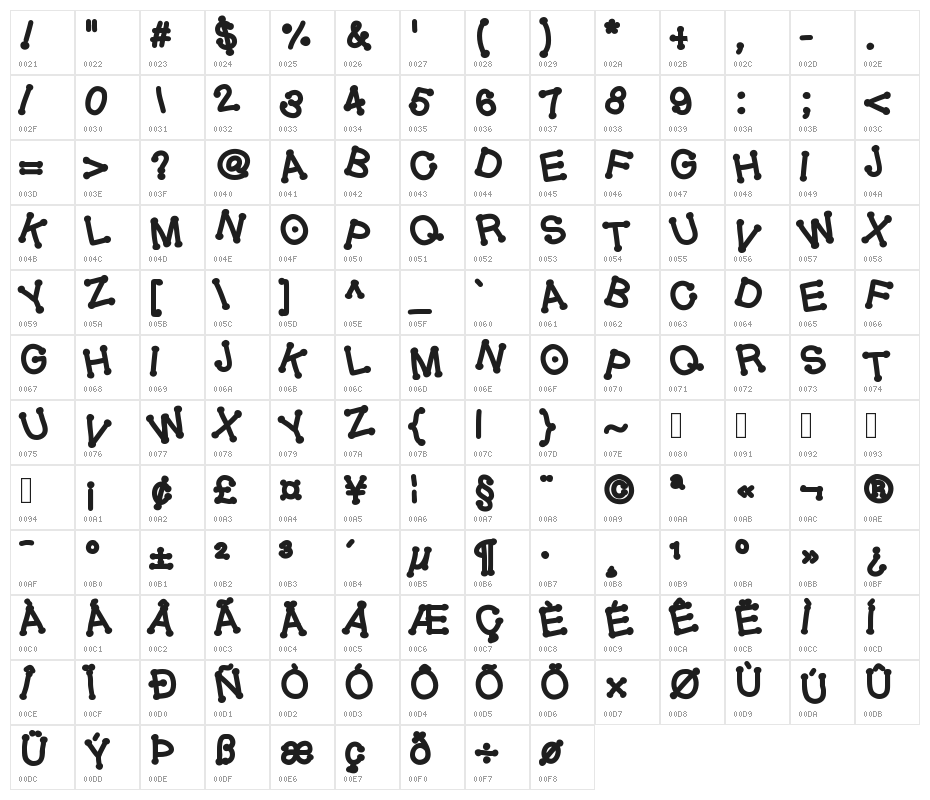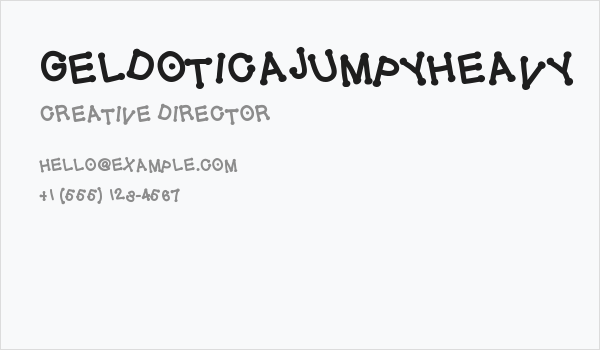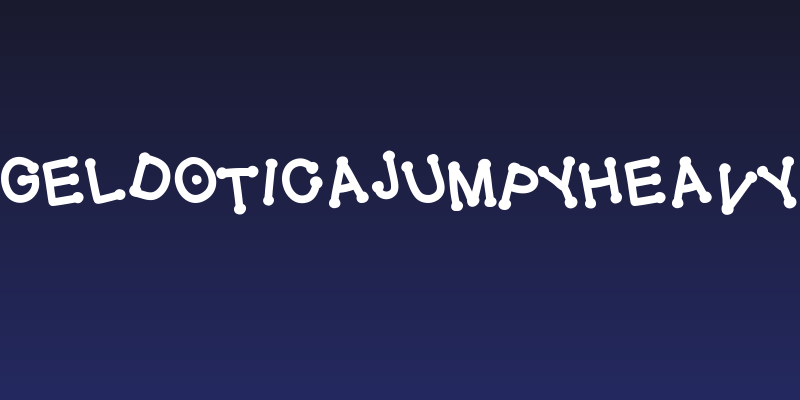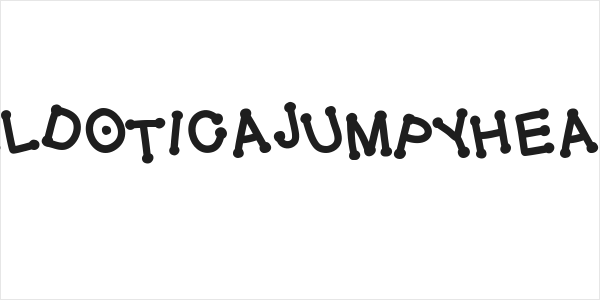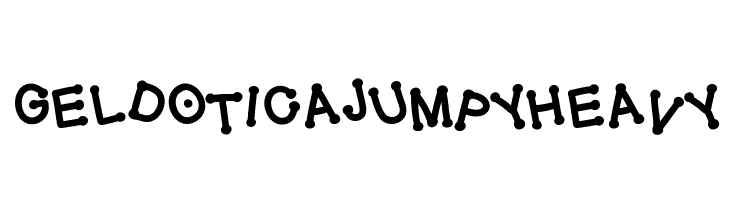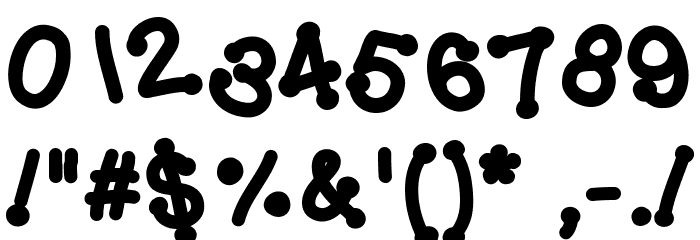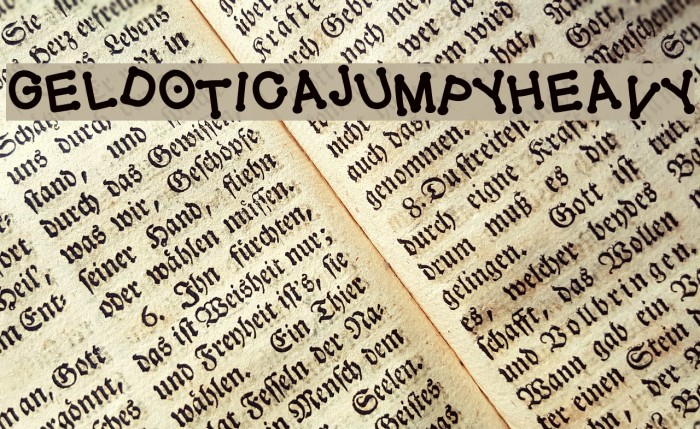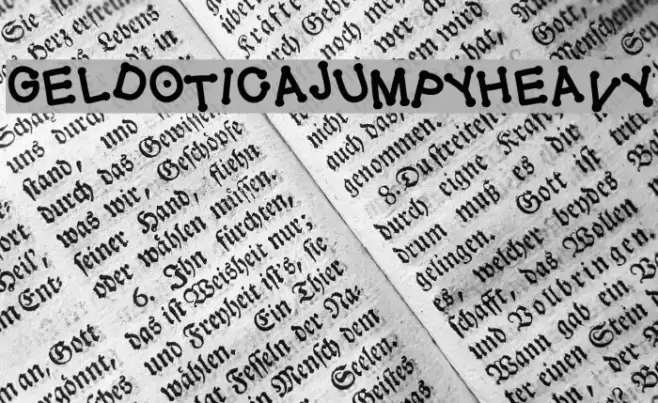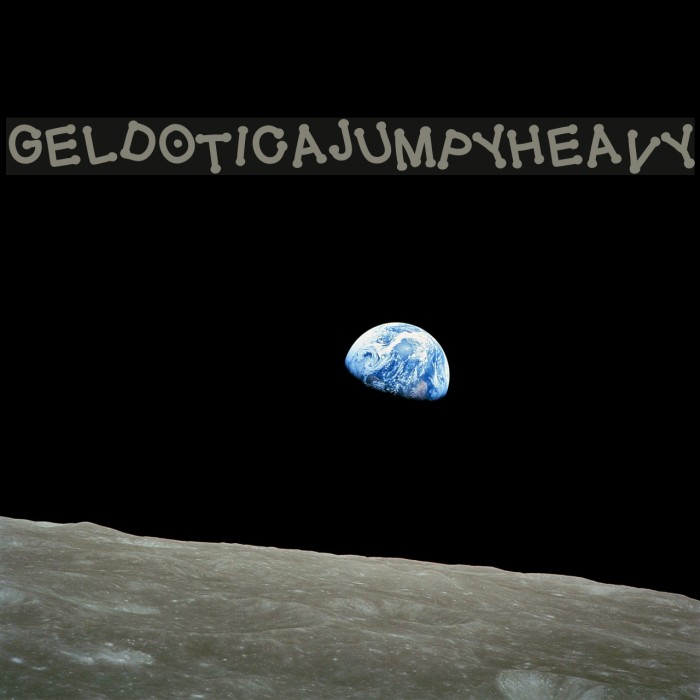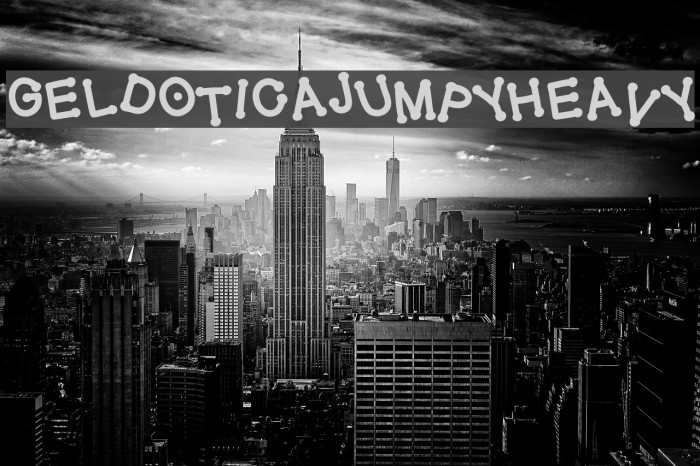
GelDoticaJumpyHeavy Font
✎ Decorative
| Gesamtstil | Playful, Whimsical |
| Vorgeschlagene Projekte | Ideal for children's books, playful branding, party invitations, and eye-catching headlines. |